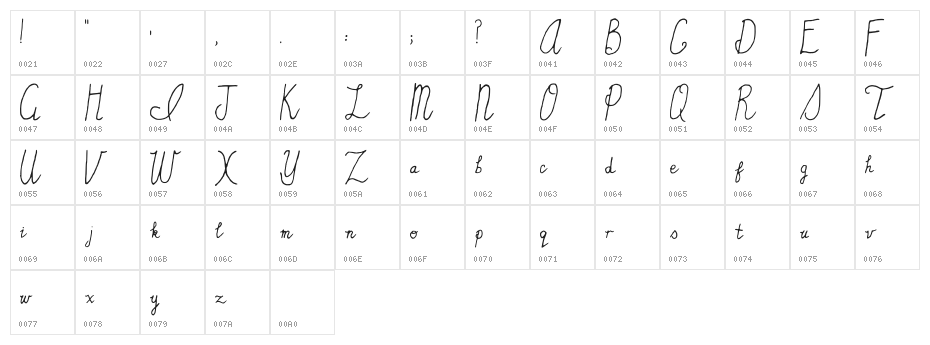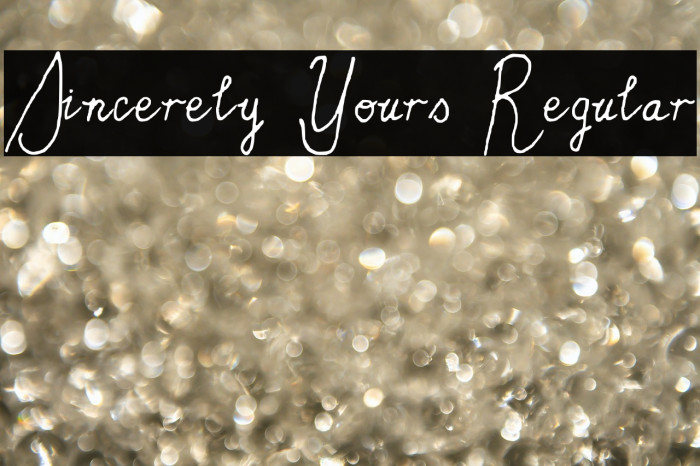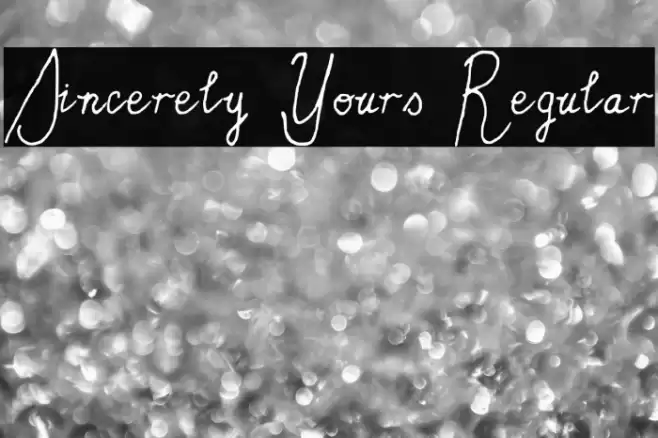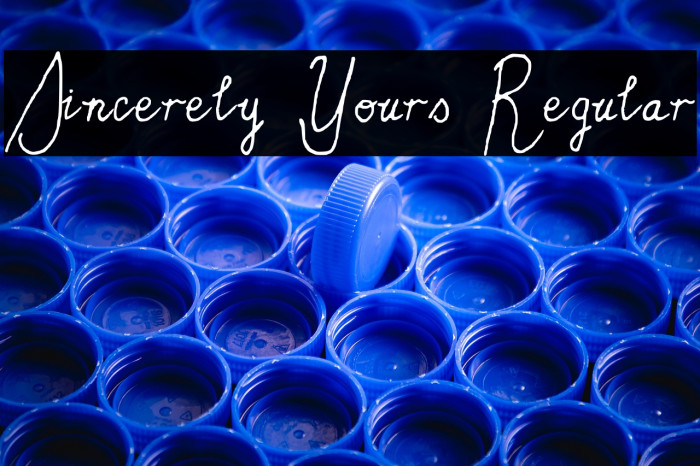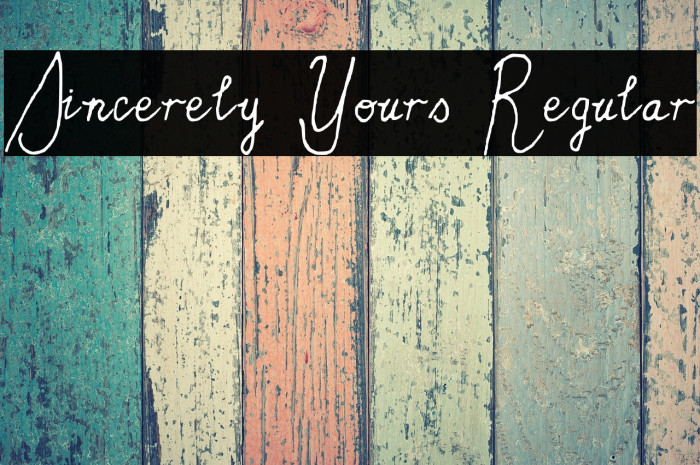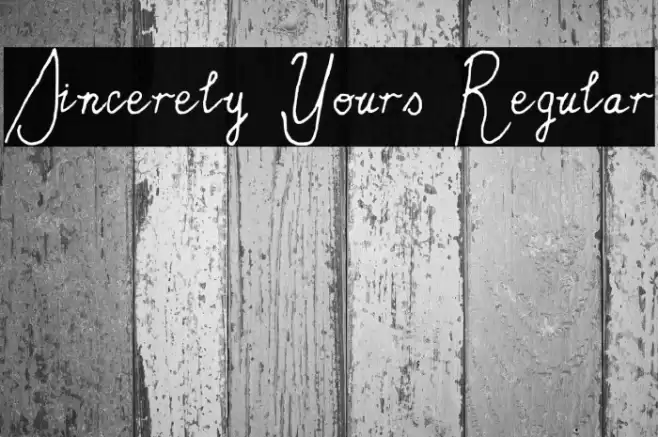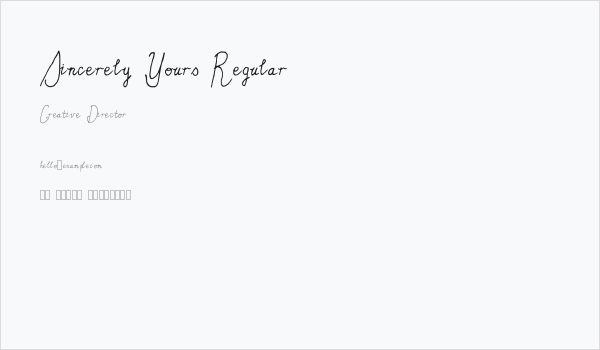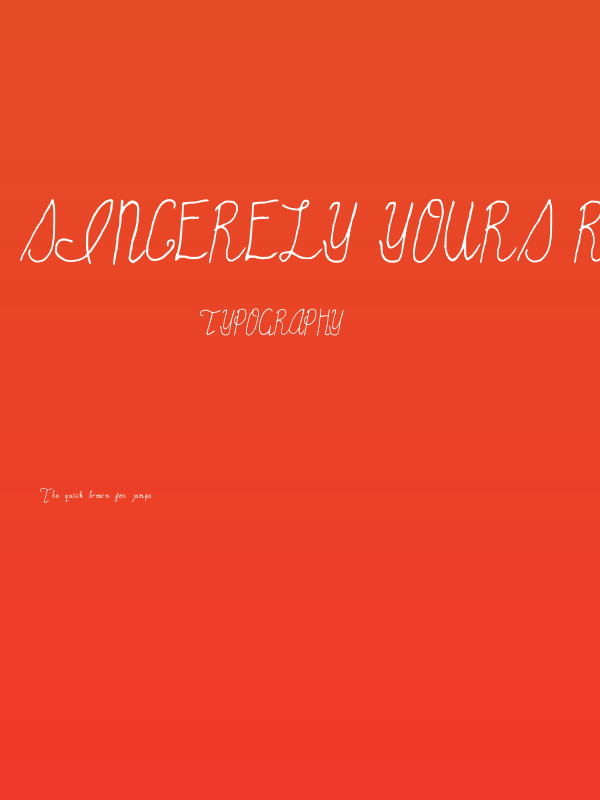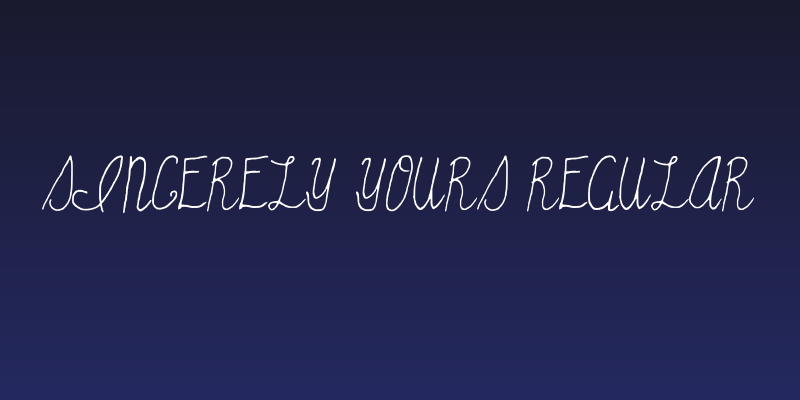
Sincerely Yours Regular Font
Sincerely Yours Regular Description
This font features a handwritten style with a casual and flowing appearance. The letters are elongated and slightly slanted, giving it a personal and informal feel. The strokes are consistent in width, with a slight variation that adds to the handwritten charm. The uppercase letters are tall and narrow, while the lowercase letters maintain a similar height, creating a cohesive look. The font includes a full set of uppercase and lowercase letters, numbers, and a selection of punctuation marks. Its playful and relaxed style makes it suitable for projects that require a personal touch.
| Overall Style | Casual, Personal |
| Use Case | Headlines, Invitations, Personal notes |
| Proposed Projects | Ideal for greeting cards, personal letters, invitations, and creative projects that require a personal touch. |